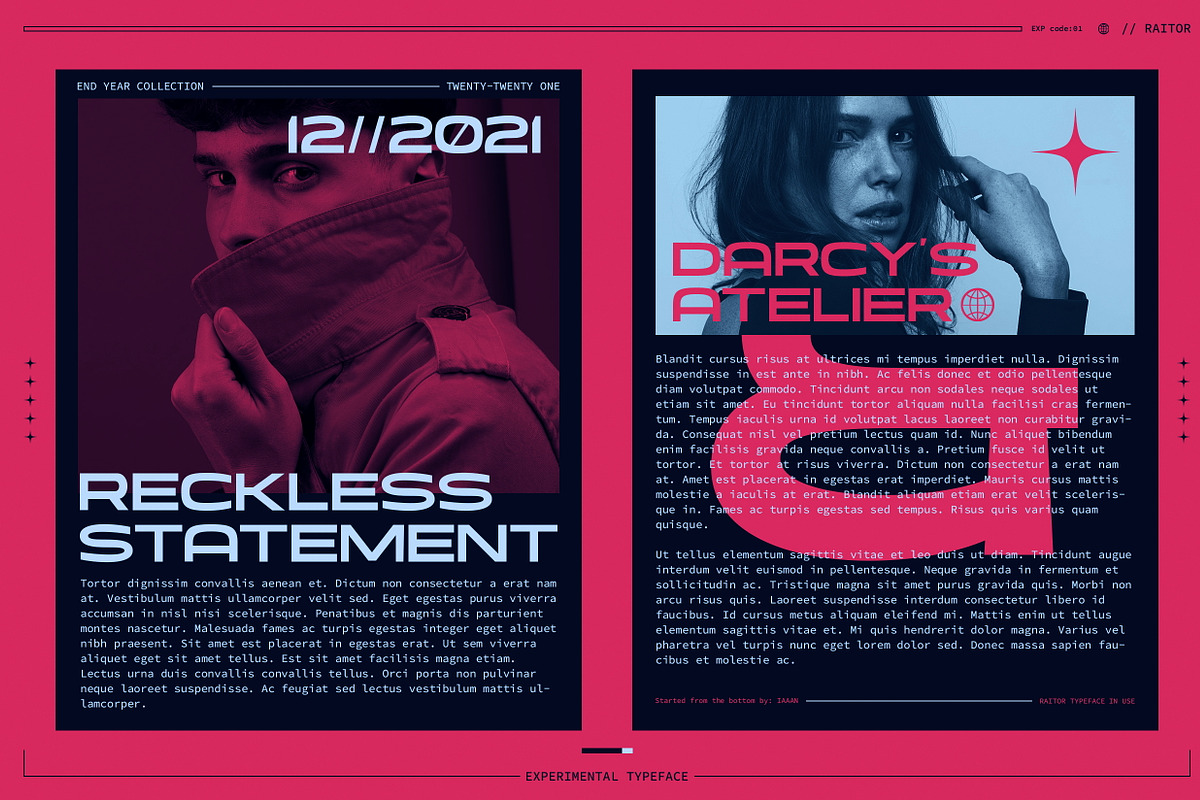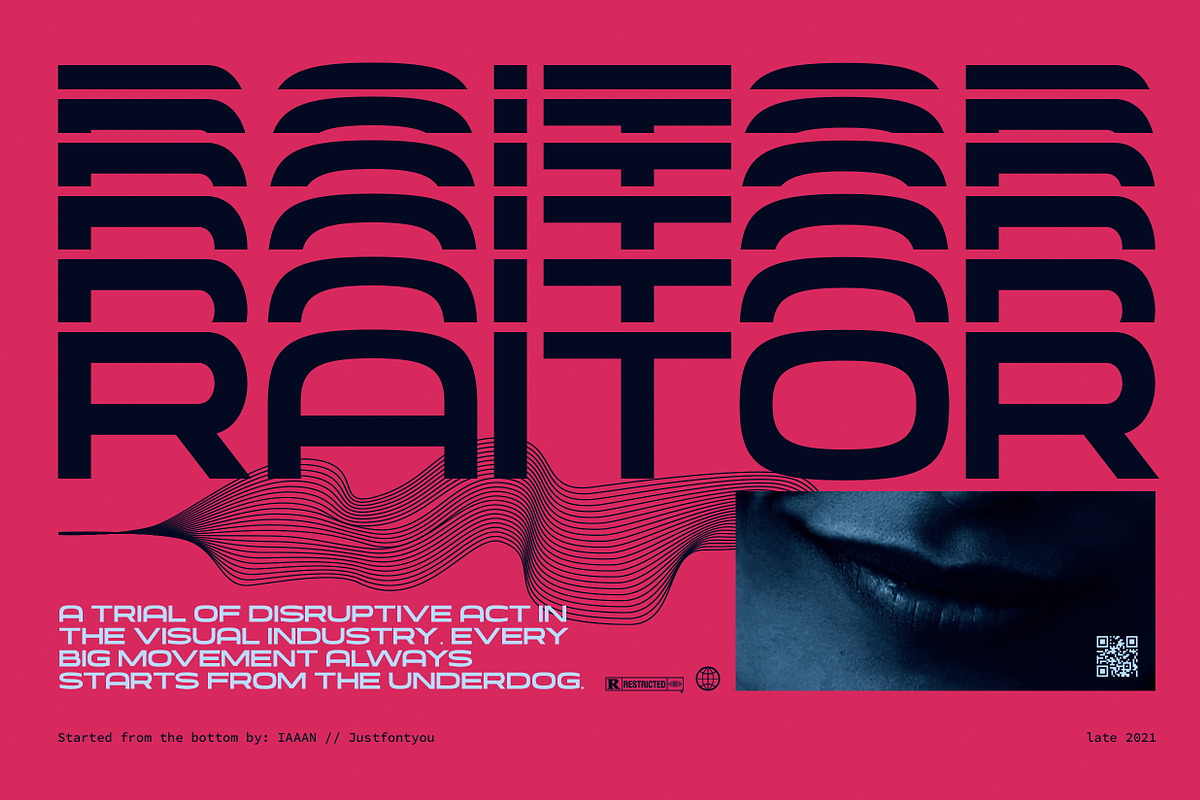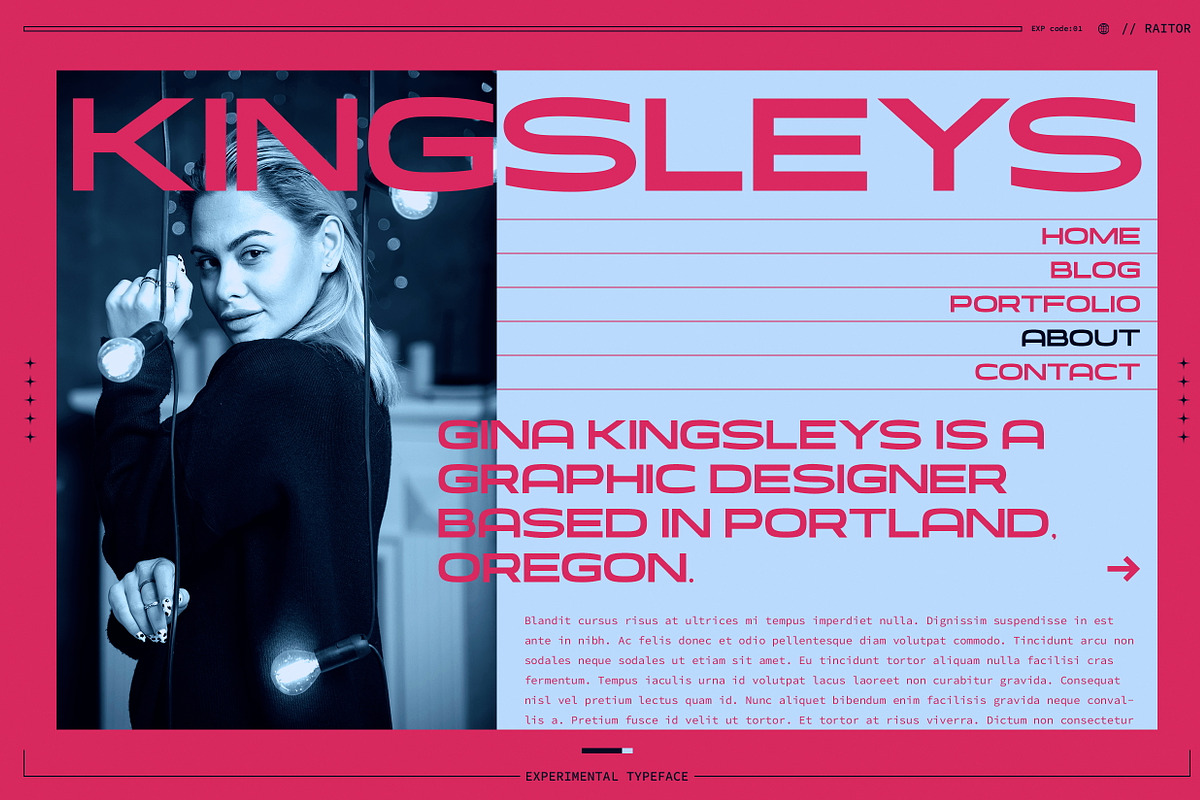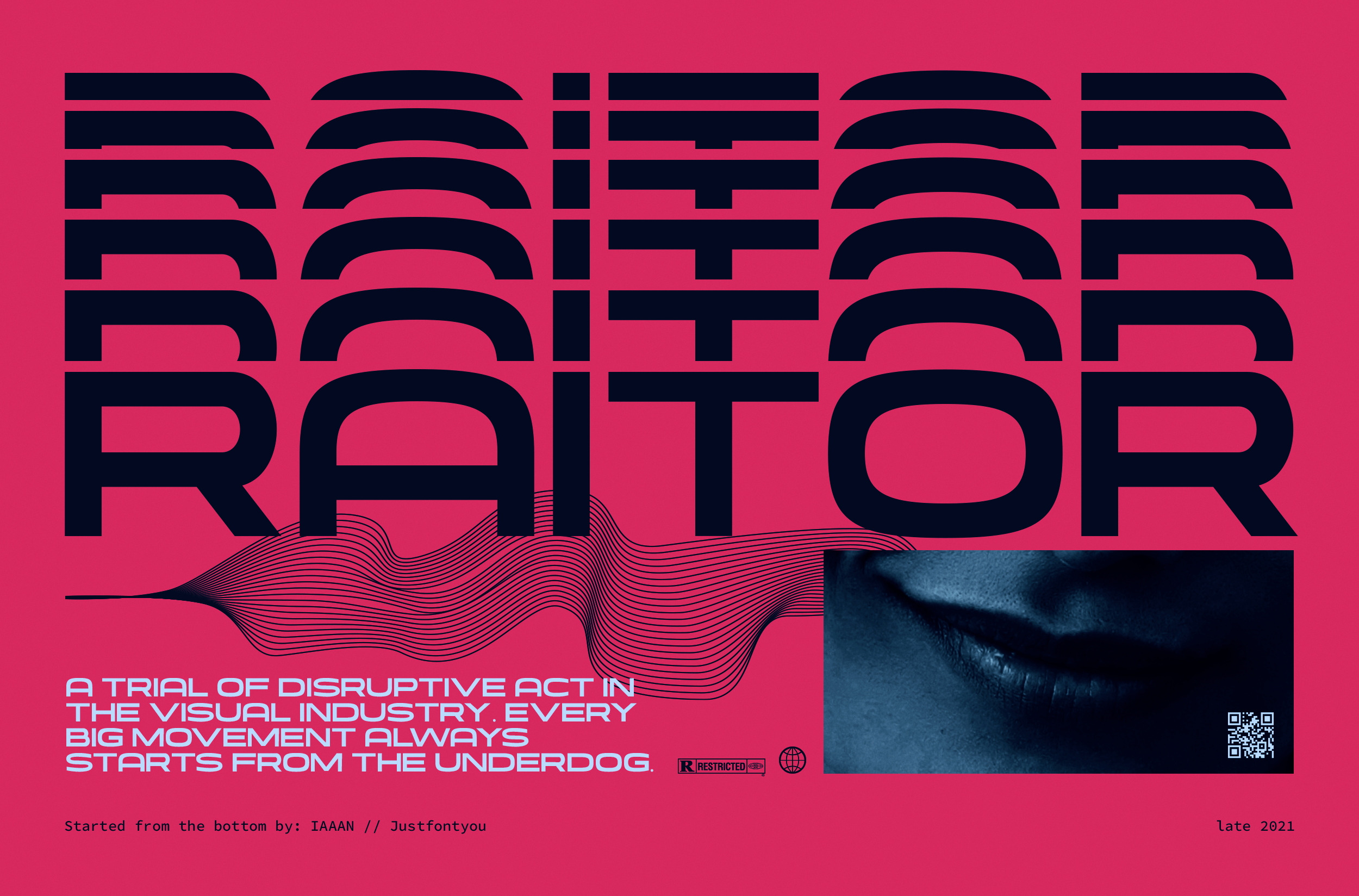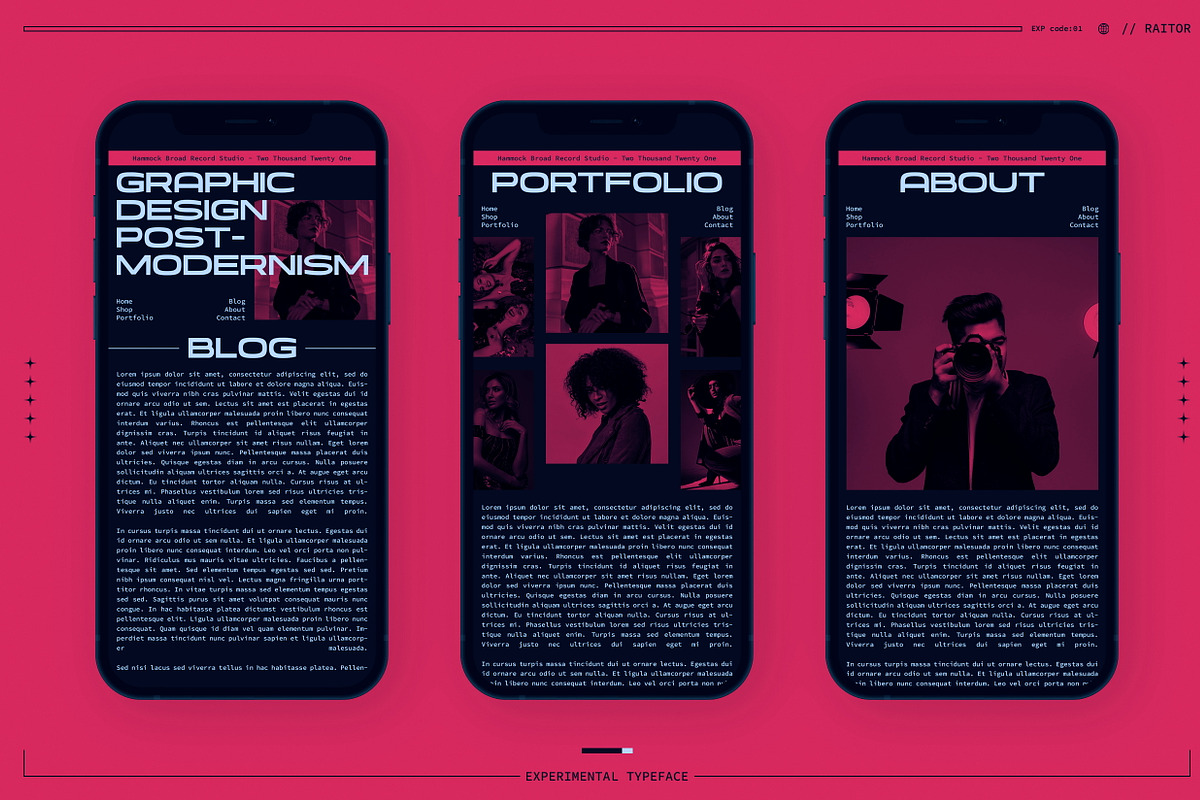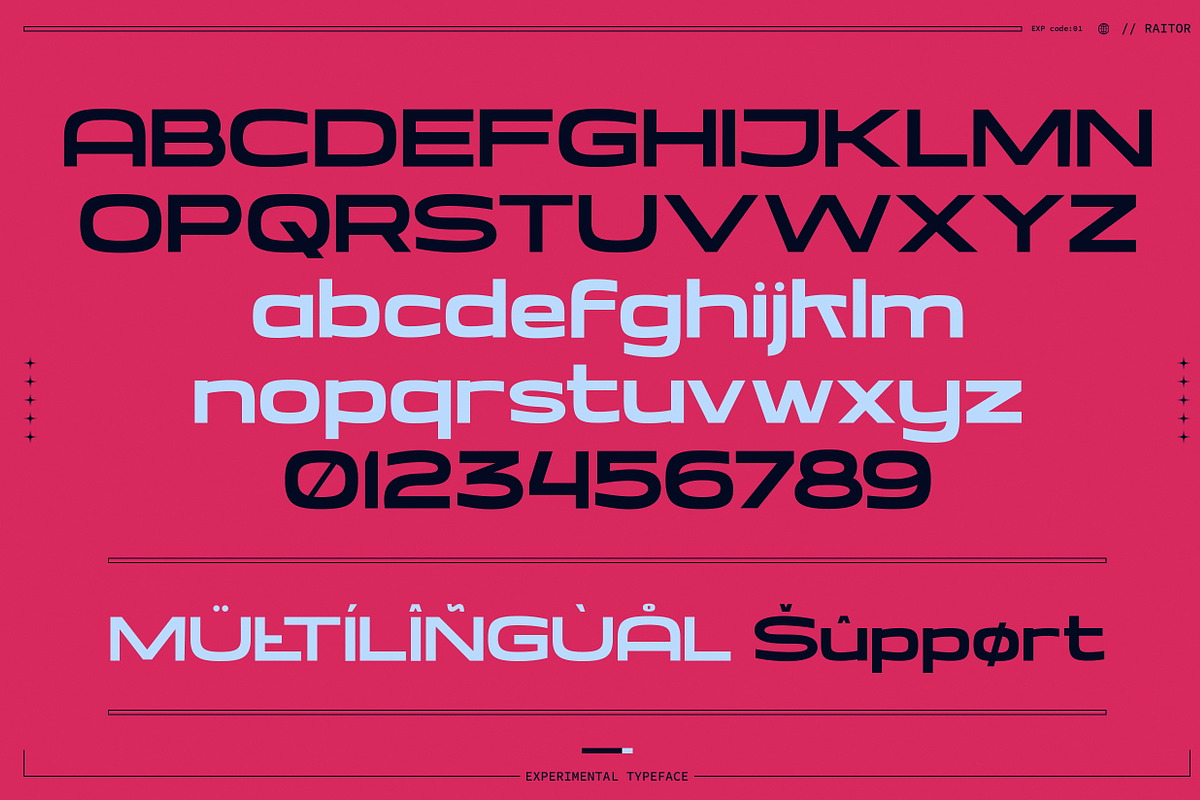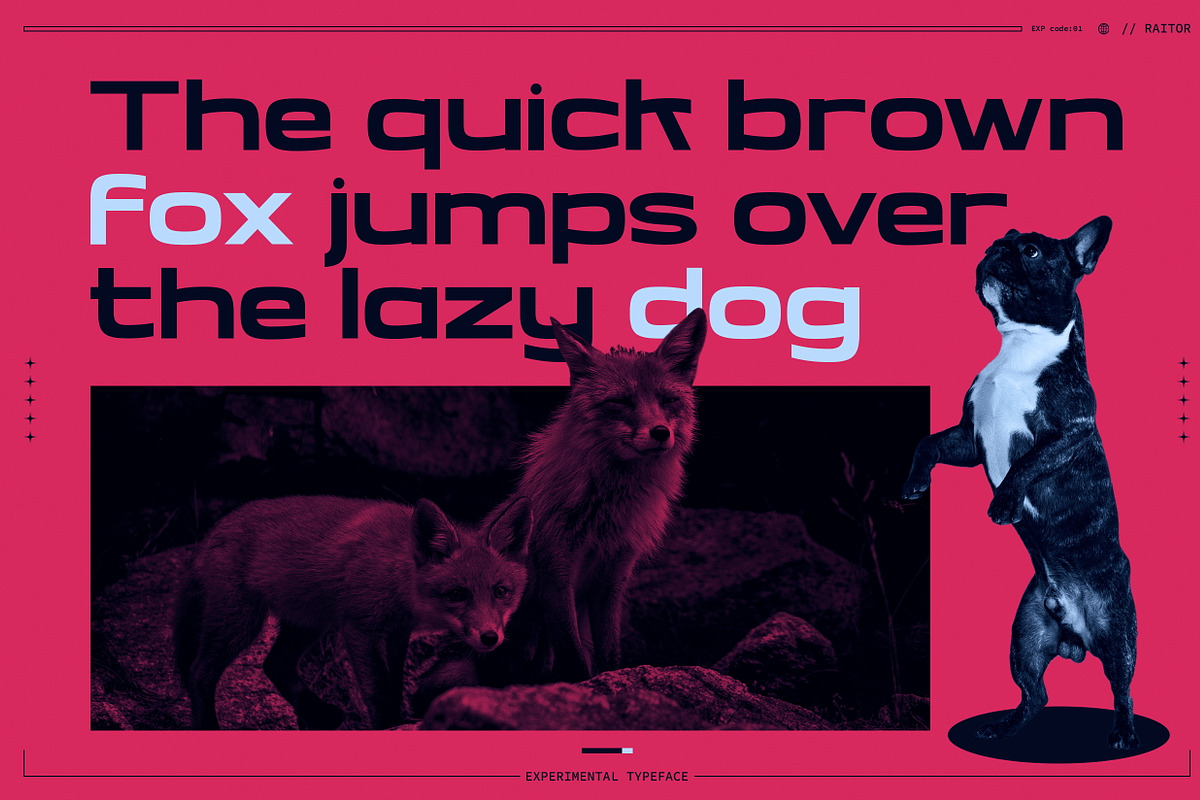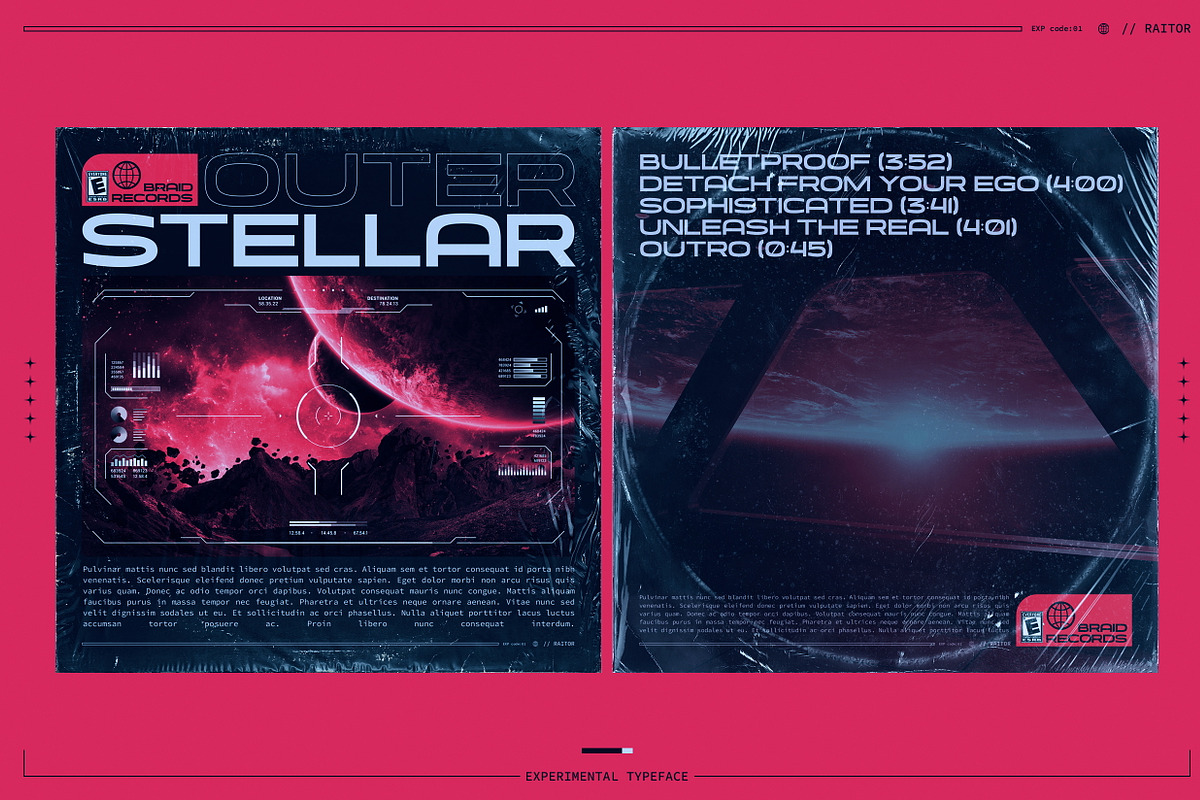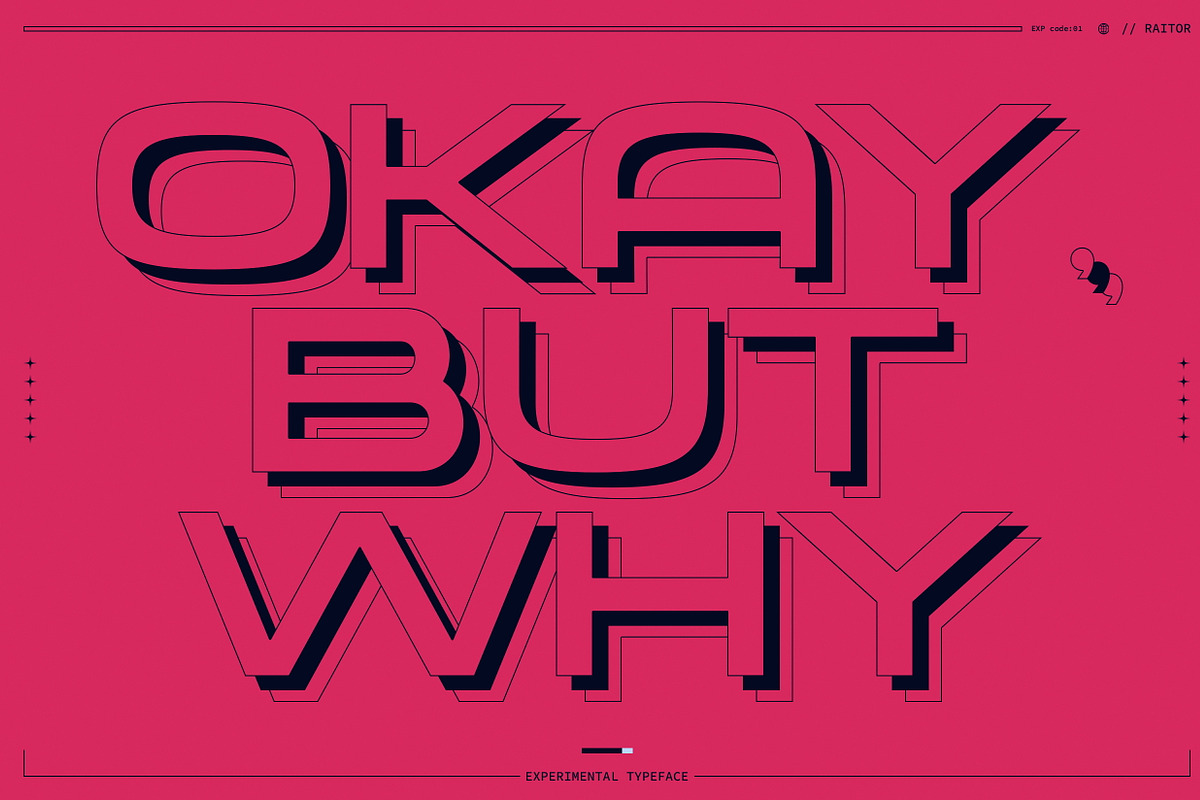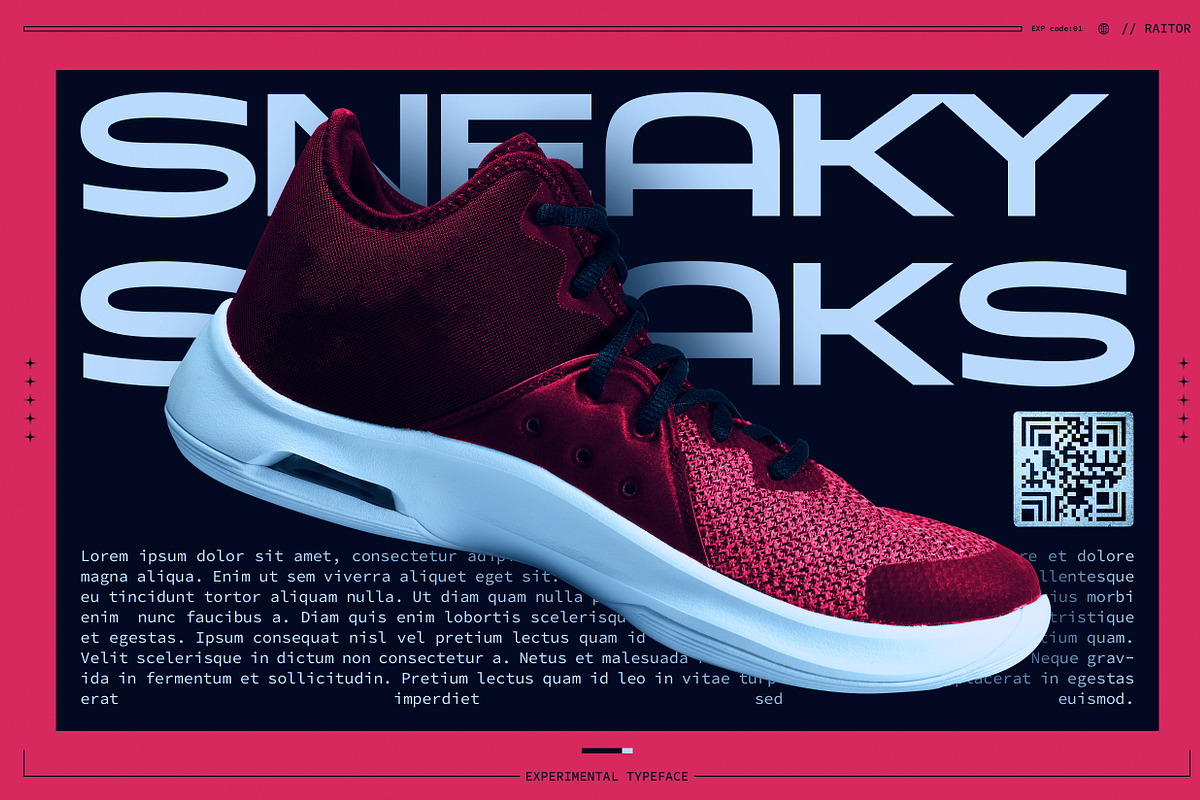
Raitor - Futuristic Display Fonts
Embrace the future together with RAITOR. A slick and sophisticated bold sans-serif, with the touch of futuristic vibes to get prepared for the upcoming metaverse era.
Conquer your presence in the future of the visual digital world, armored with RAITOR. Perfectly fit for your logo, branding, poster, album artwork, streaming assets design, futuristic themed design, you name it.